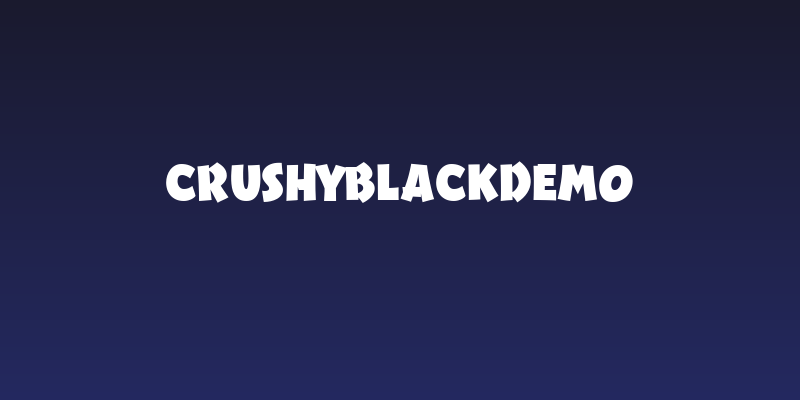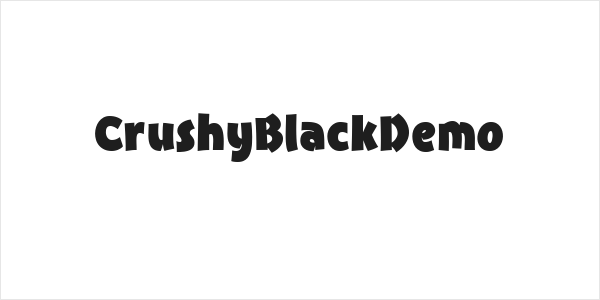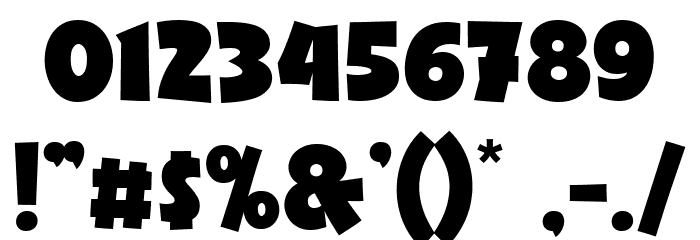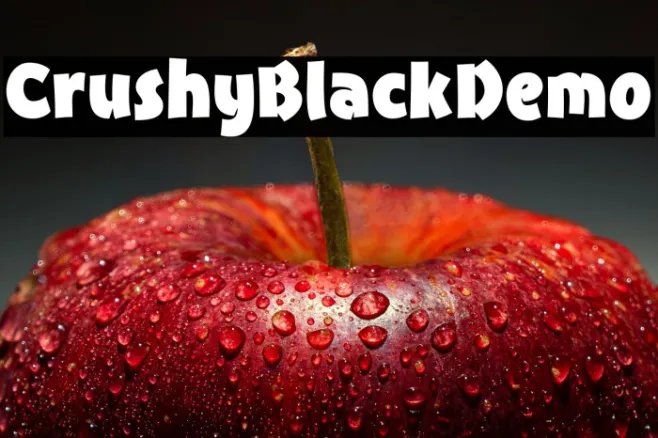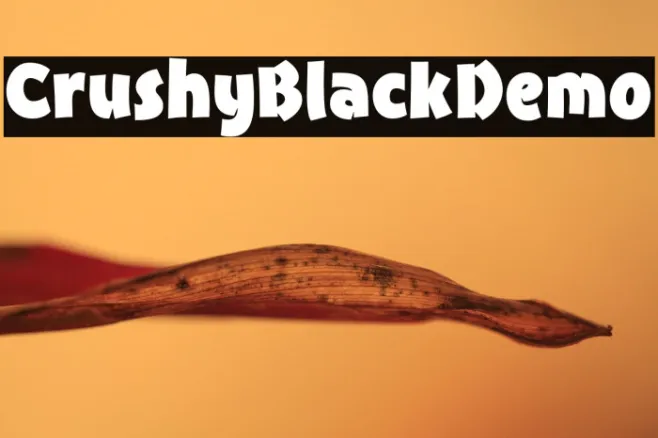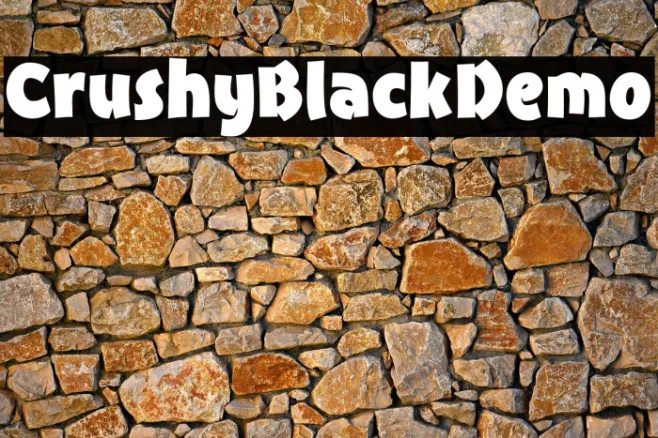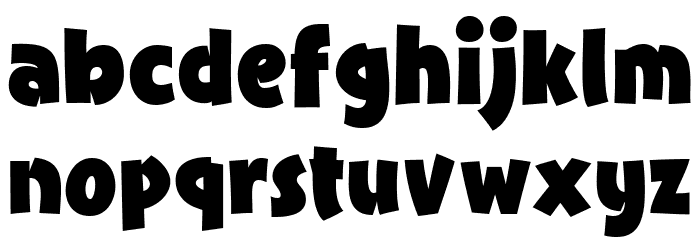
CrushyBlackDemo Font
CrushyBlackDemo Description
This font features a bold and playful design with exaggerated curves and thick strokes, giving it a lively and dynamic appearance. The letters are slightly irregular, adding a whimsical touch that makes it stand out. The uppercase and lowercase characters maintain a consistent style, with rounded edges and a strong presence. Numbers and special characters follow the same bold and quirky design, ensuring a cohesive look across all elements. This font is perfect for projects that require a fun and engaging visual impact.
| Overall Style | Playful, Whimsical |
| Proposed Projects | Ideal for children's books, playful branding, posters, and event invitations. |